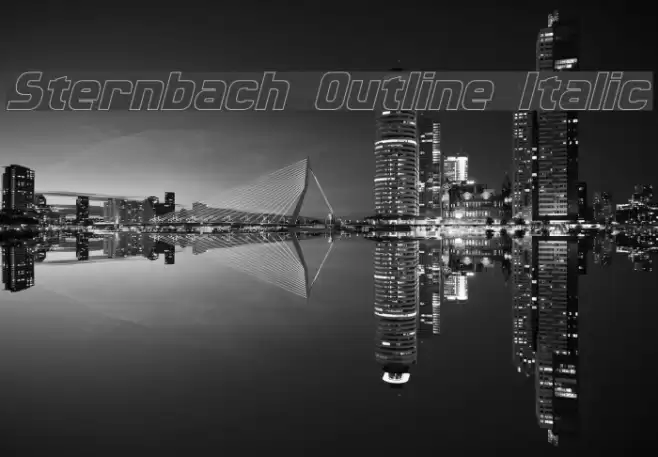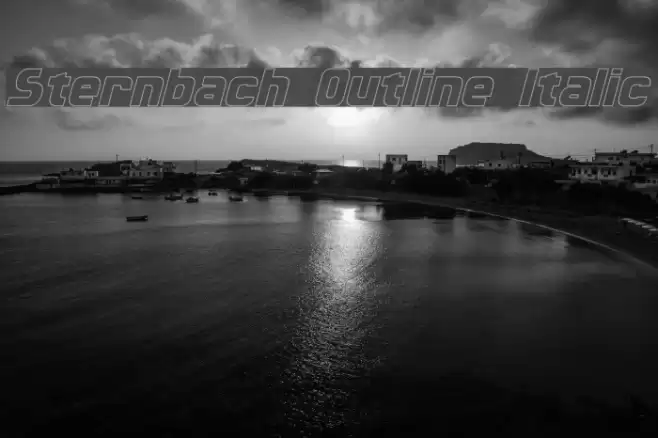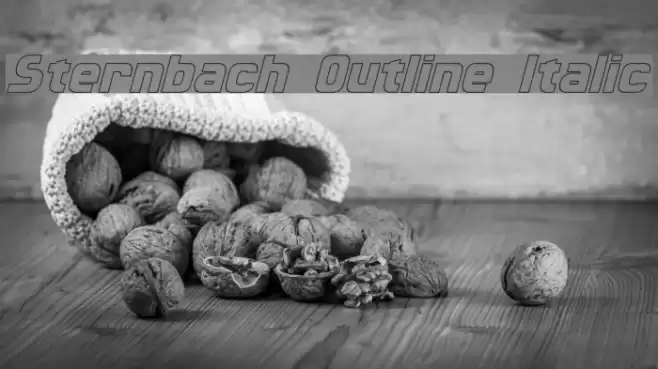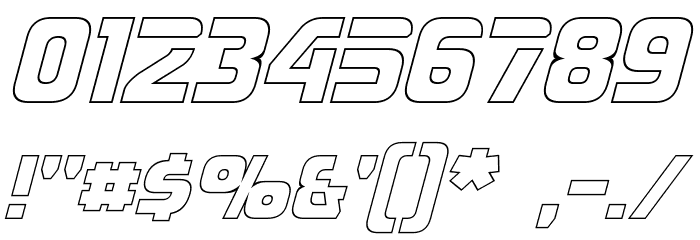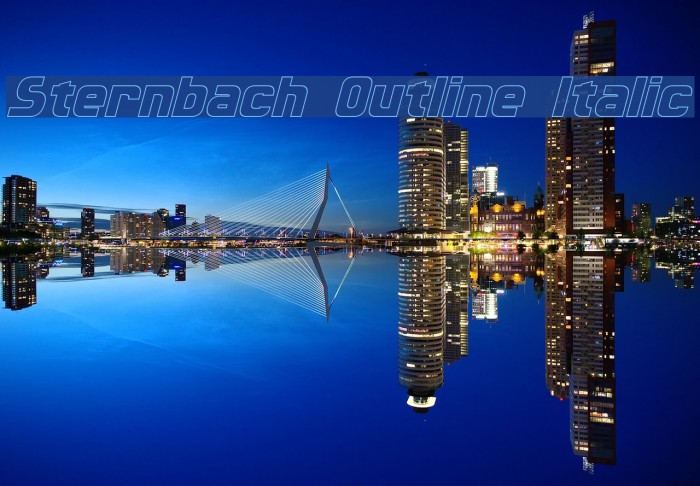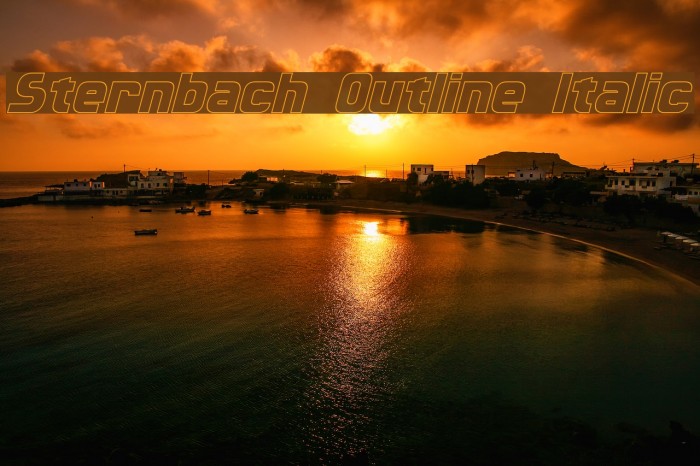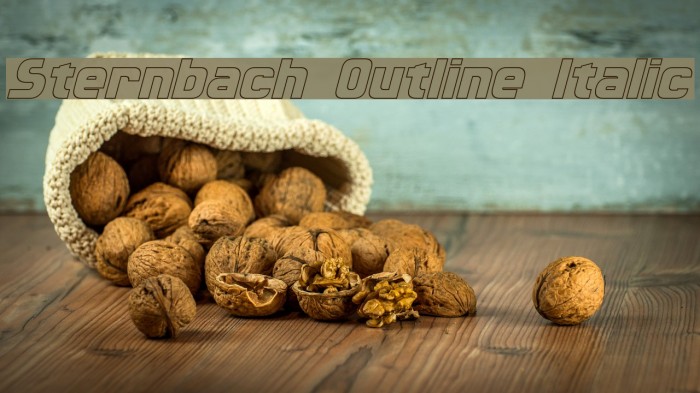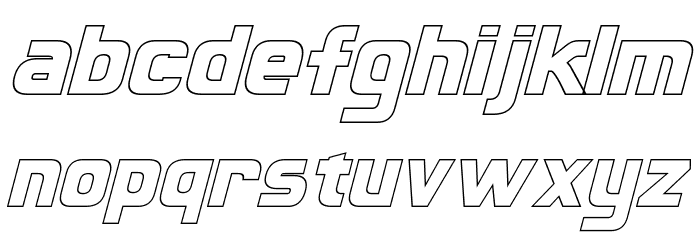
Sternbach Outline Italic
This font features a bold, geometric design with an outline style that gives it a futuristic and dynamic appearance. The italic slant adds a sense of motion and speed, making it ideal for modern and tech-oriented projects. Each character is constructed with clean, sharp lines and a consistent stroke width, creating a uniform and cohesive look. The uppercase and lowercase letters maintain a similar structure, ensuring readability and versatility. The numerals and special characters are designed to match the overall aesthetic, providing a complete and cohesive typeface.
A bold, geometric outline font with an italic slant, perfect for modern designs.
- Proposed Projects: Ideal for tech branding, futuristic posters, video game titles, and digital interfaces.